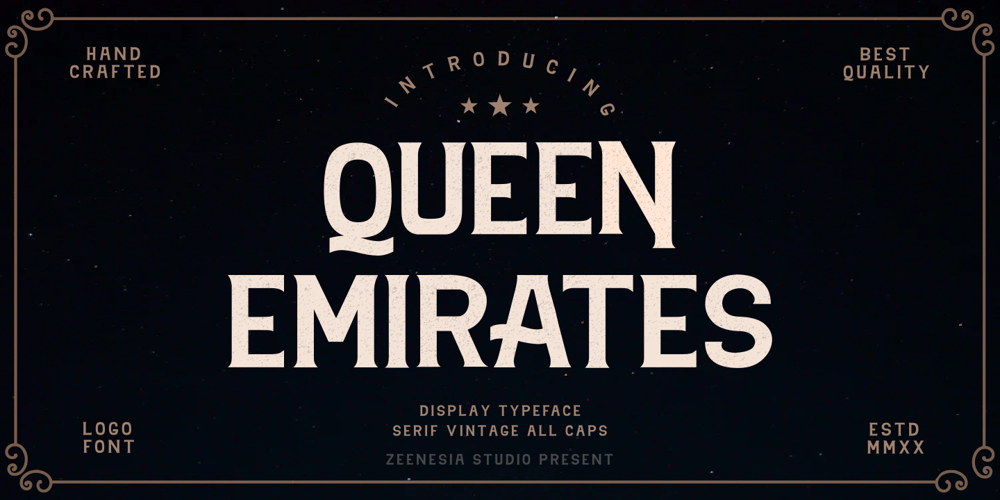
Queen Emirates
Queen Emirates font
Queen Emirates Font Family was designed by Zeenesia Studio and published by Zeenesia Studio. Queen Emirates contains 1 styles and family package options. Queen Emirates is a vintage serif font crafted very carefully, Queen Emirates is perfect use for a logo for branding, typography design, badge design, product packaging, invitation, quotes, t-shirt design, label poster, special events and anything that need vintage taste.It came with number & punctuation, stylistic alternate, multilingual support, and PUA encode.Hope you like this product.